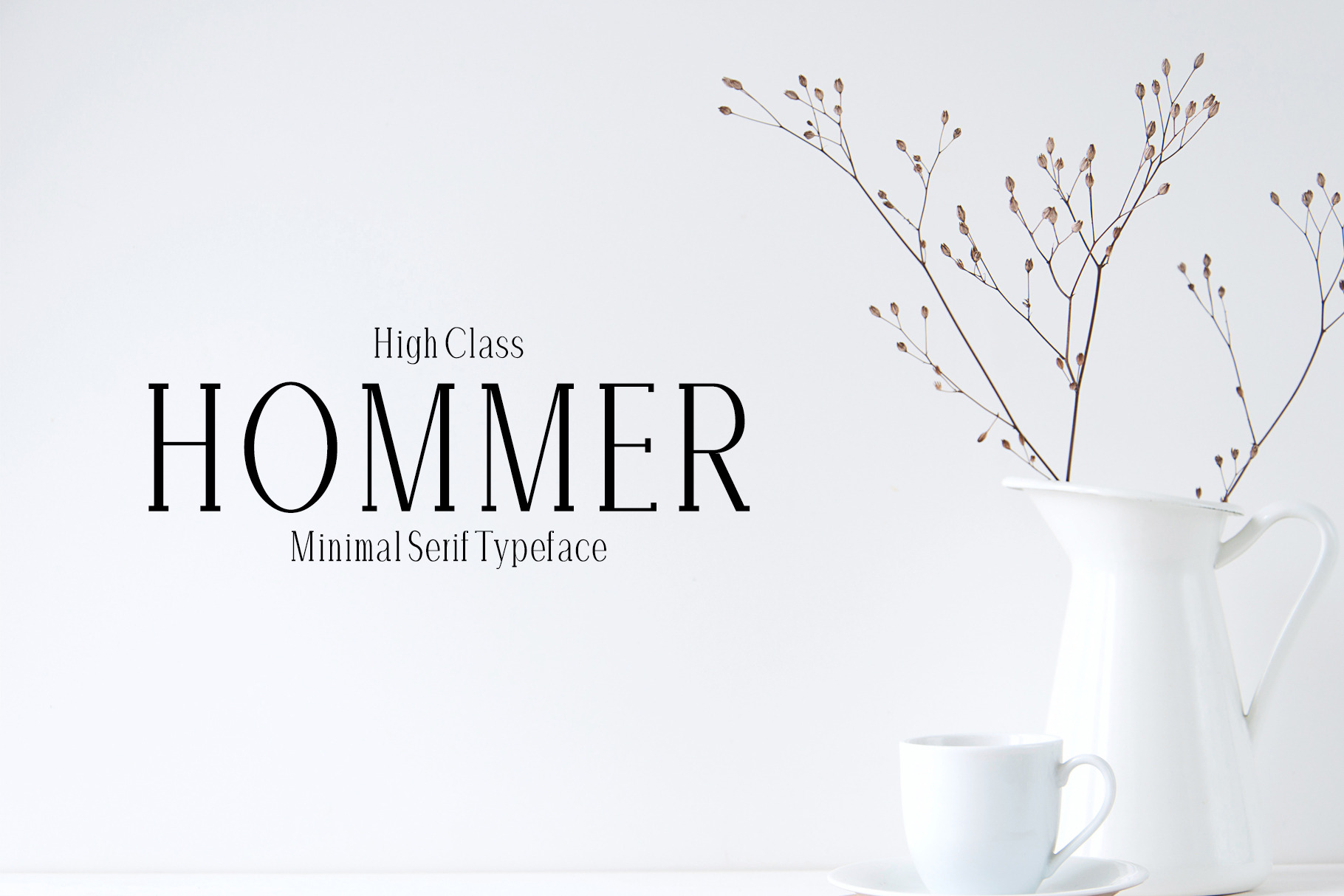
Hommer Minimal Serif Font Family
Hommer Serif Typeface is minimalist and beautiful serif typeface of 6 weights fonts, and hommer features unique and modern serif look and feel.
Perfect for gorgeous logos & titles, layouts & content, or large & small scale, It looks gorgeous in all caps with a wide-set spacing if you want to try a classy look, or beautiful on its own in capital and lowercase letters for something completely timeless.
- Font Weight: Regular, Thin, Light, Outline, Bold and Extra Bold
- Non English Characters ( Latin Supplement + Latin Extended A )